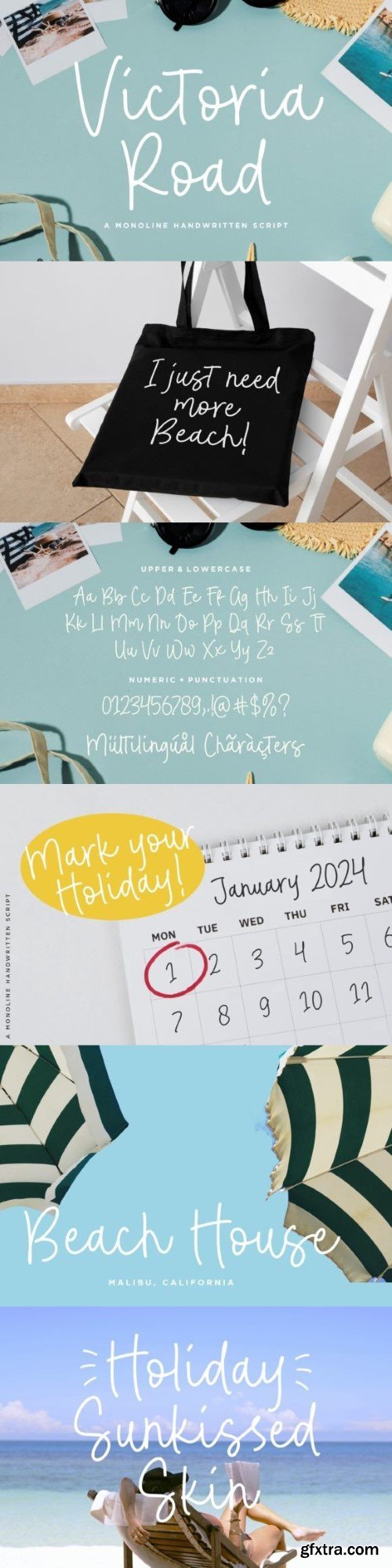
薇塔利亚路字体
Victoria Road is a charming handwritten script font exuding elegance and warmth. With its graceful strokes and delicate curves, it adds a touch of sophistication to invitations, logos, and branding materials. Victoria Road captures the essence of handwritten beauty, making every design project feel personal and inviting.